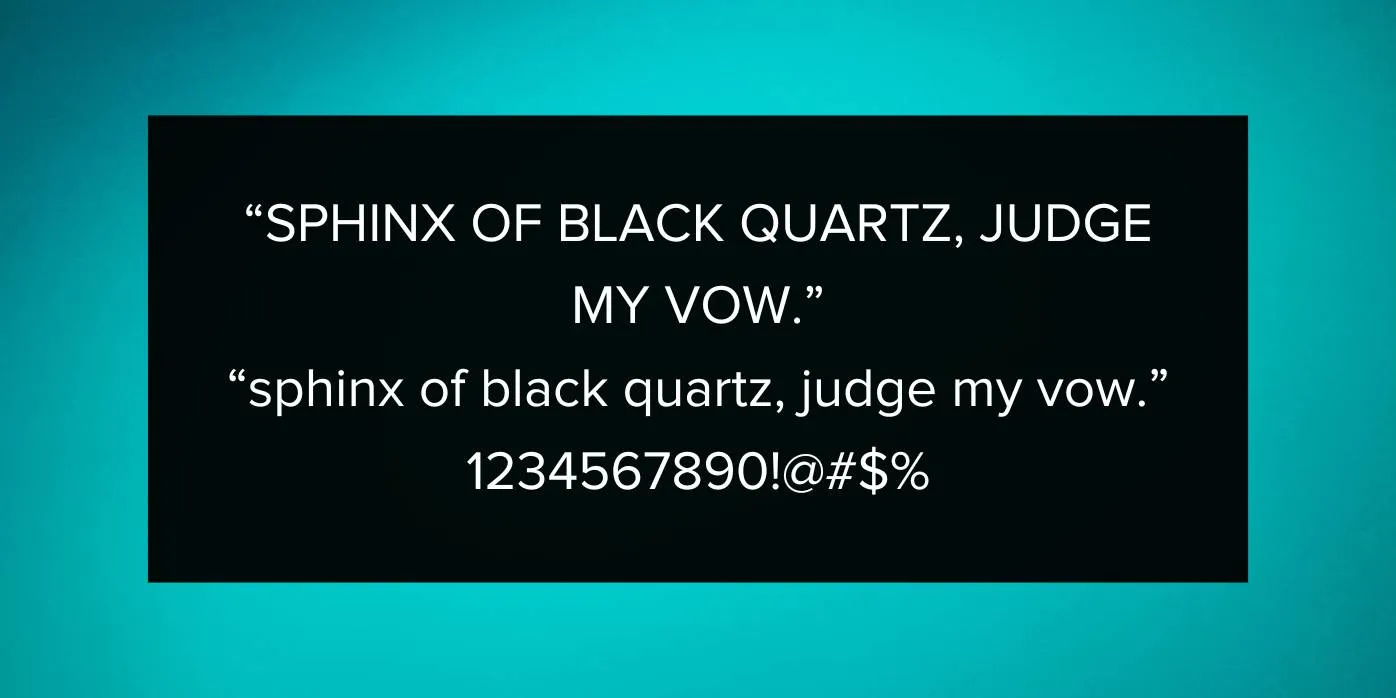
Proxima Nova Font is a classical Sans-Serif typeface, one of the most demanded typefaces in the font market. This font family was developed by Mark Simonson. This font has a wide range of fonts which is a complete modification of this typeface that was out in 1994.
This is a durable, adaptable, geometric Sans with trade superiority. This typeface arises with 7 styles and weights Regular, Bold, Semi Bold, Medium, Black, and Extra Bold, and condensed with the same Italic, also has all characters consist of small and large alphabets, numbers, signs, special characters,s, etc.
Firstly, this typeface was out in 1994 as Proxima Sans with elementary letterforms in 3 weights with similar italic. Afterward, in 2005 came Proxima Nova with a fully featured and multipurpose font family, it is also called New Helvetica due to its adaption and contemporary expression.
Who Can Use Proxima Nova Font?
This is a combo of standard geometry and recent scopes, it increases so much popularity because of its use in notable places, like Tik Tok, BuzzFeed, Mashable, and NBC News. This typeface generates unexpected fallouts when it makes coupled with the Montserrat font and its styles.
This typeface is a stunning choice for the making of mugs, tiles, T-shirts, logos, heading, captions, documentation, slips, drafts, official presentation, cards, book covers, website designs, app designs, ads, posts, articles, content, and other text or display projects.
Whether you are a designer this typeface is the best choice for all of your designs. Although you want a font for your business logo or book title or another display project, This Font design is a good option. You can use this style of design in various projects to build a professional and attractive look for your project.
Is Proxima Nova Font the same as Helvetica?
Helvetica font and this font are a little bit different from each other as when we notice the small letter “i” is spotted with a circle, while in Helvetica “i” is spotted with rectangular, this shows a little difference between them.
Is Proxima Nova overused?
This is the most commonly used font on 25,000 websites according to research, because of its size, complete appearance, letter spacing, and its features. Everyone wants to use this font in their project to enhance the beauty of the work.
What Font Is Similar to Proxima Nova Font?
There are several typefaces on websites that are similar to this typeface but Gotham font is the best and more closet to this font family.
What font is similar to Proxima Nova in Adobe?
Monserrat font is one of the best and most similar fonts to this typeface in Adobe.